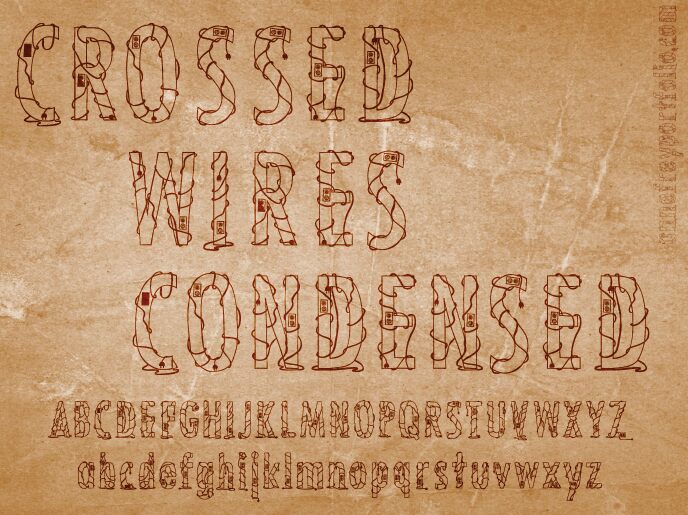
Crossed Wires Condensed is a free cartoon display font whose tall, narrow letters are tangled in electrical cables. Plugs, sockets, and looping cords turn each character into a small line drawing. The uneven paths keep it lively.
Young audiences and tech-minded entertainment are the clearest match, especially for children's posters, game graphics, and gadget packaging. Its cable motif also suits science events and electronics-themed merchandise, where the lettering can function as part of the comic illustration.